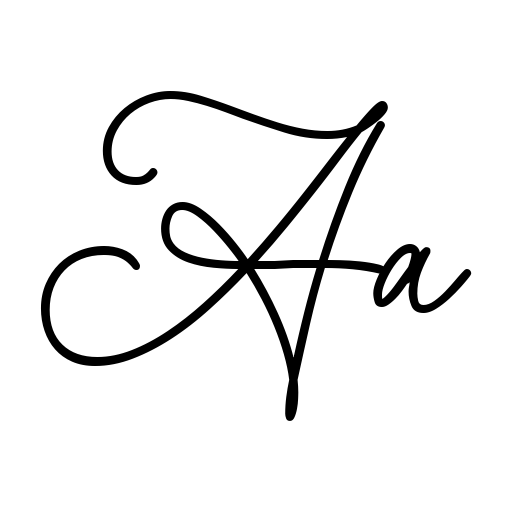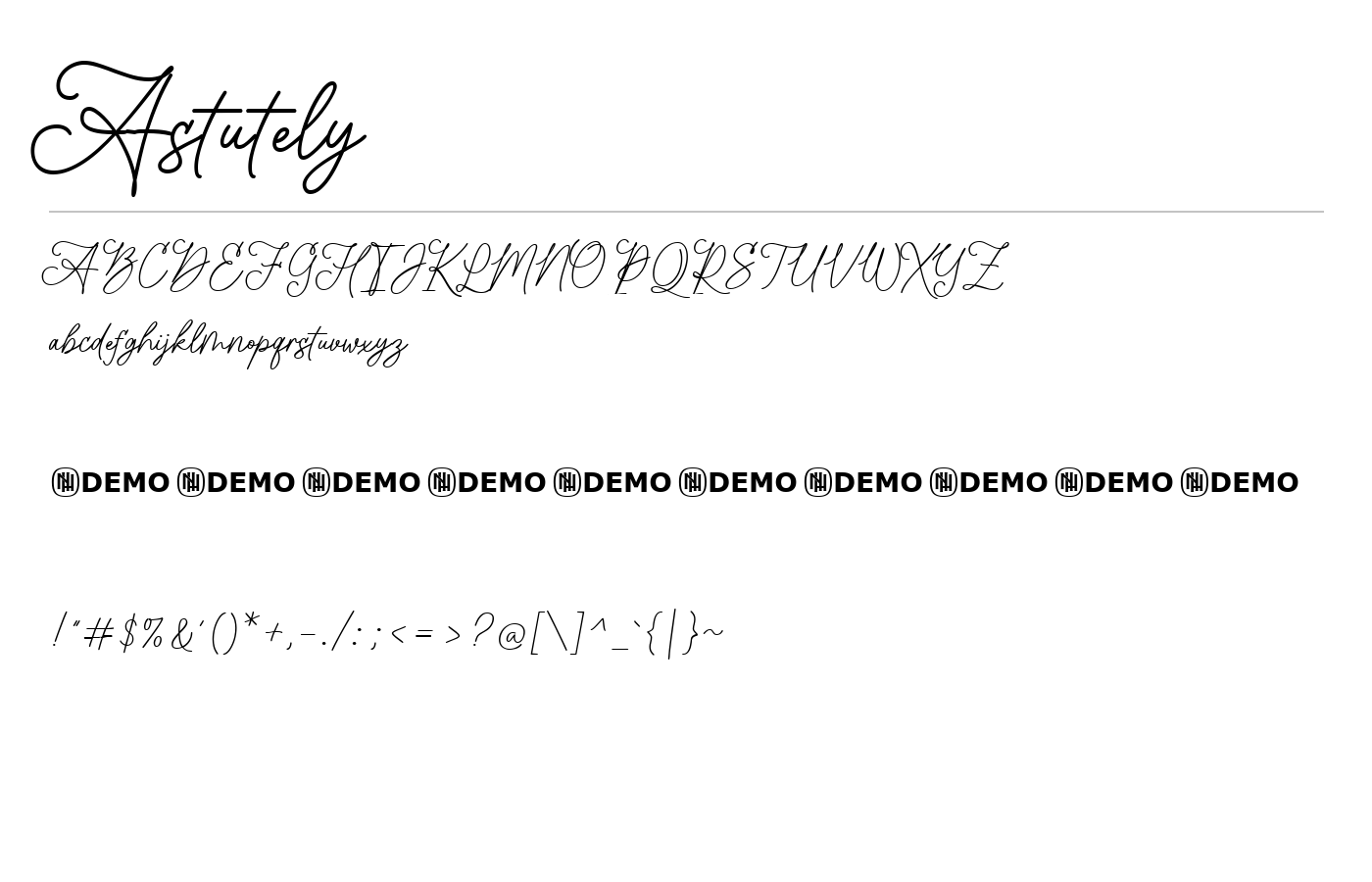
Astutely is an elegant script font characterized by its thin, flowing strokes and delicate, hand-lettered style. Its light weight and tall x-height create an airy, sophisticated feel, making it perfect for luxury branding, wedding invitations, and editorial designs that seek a refined, personal touch. This font shines in contexts where graceful, artistic flair is desired for headlines and decorative text.
Astutely Font